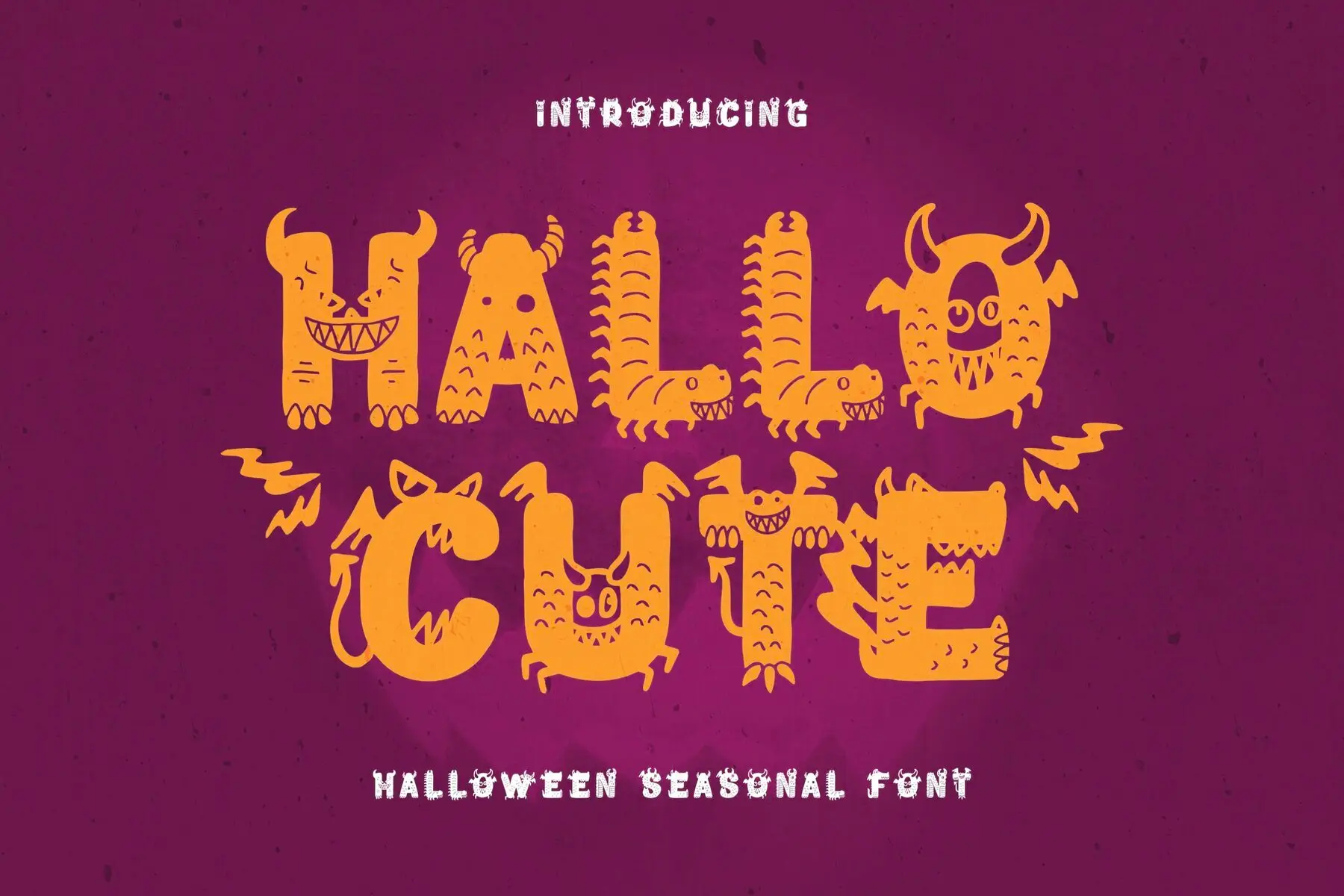
Hallocute Font
Hallocute
Hallocute brings quirky, spooky energy to your designs with bold, monster-inspired lettering. Each character features playful elements such as eyeballs, horns, fangs, and tentacles, creating a fun Halloween vibe. The thick, rounded forms are accented with textured details—think scales, fur, and stitched effects—that capture the essence of classic monster illustrations. This typeface suits projects requiring both horror and lighthearted whimsy. Whether you're working on party invitations, children’s books, or toy packaging, Hallocute’s bold style stands out. Its strong, decorative look draws attention while still feeling approachable for playful and kid-focused themes.Hallocute — Playful Monster-Themed Typeface